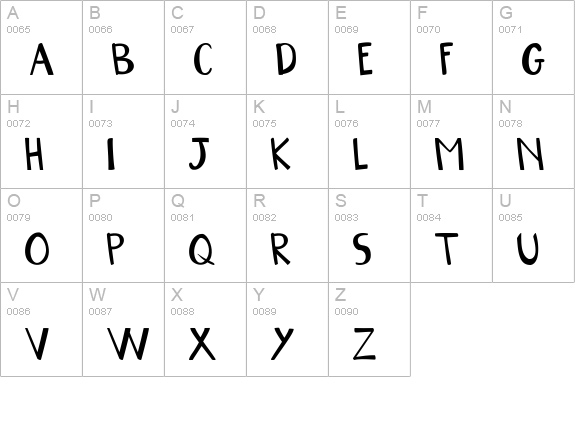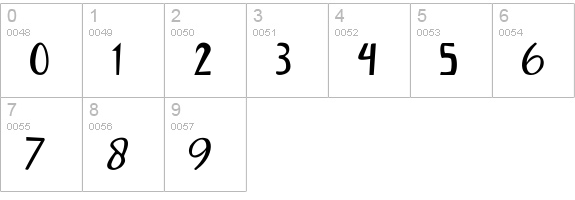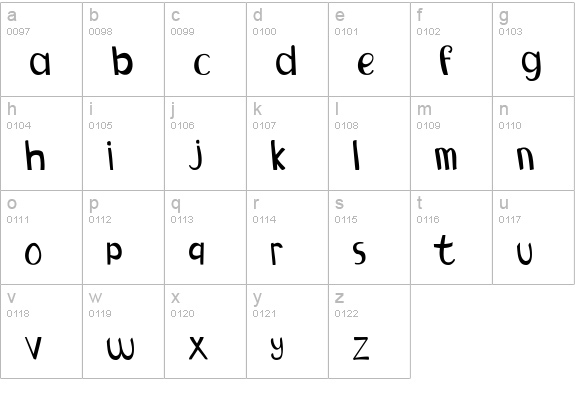
NGOBET Font Details
NGOBET is a free for personal use font in the Script category, designed by ilhammauulana. It has been downloaded 31 times and is available for Windows, Mac and Linux.
NGOBET font is a versatile typeface that combines elegance with modernity, making it ideal for a wide range of design projects. Its sleek and stylish design exudes professionalism and sophistication, making it perfect for branding, advertising, and editorial purposes. With its clean lines and timeless appeal, NGOBET font adds a touch of class to any project.